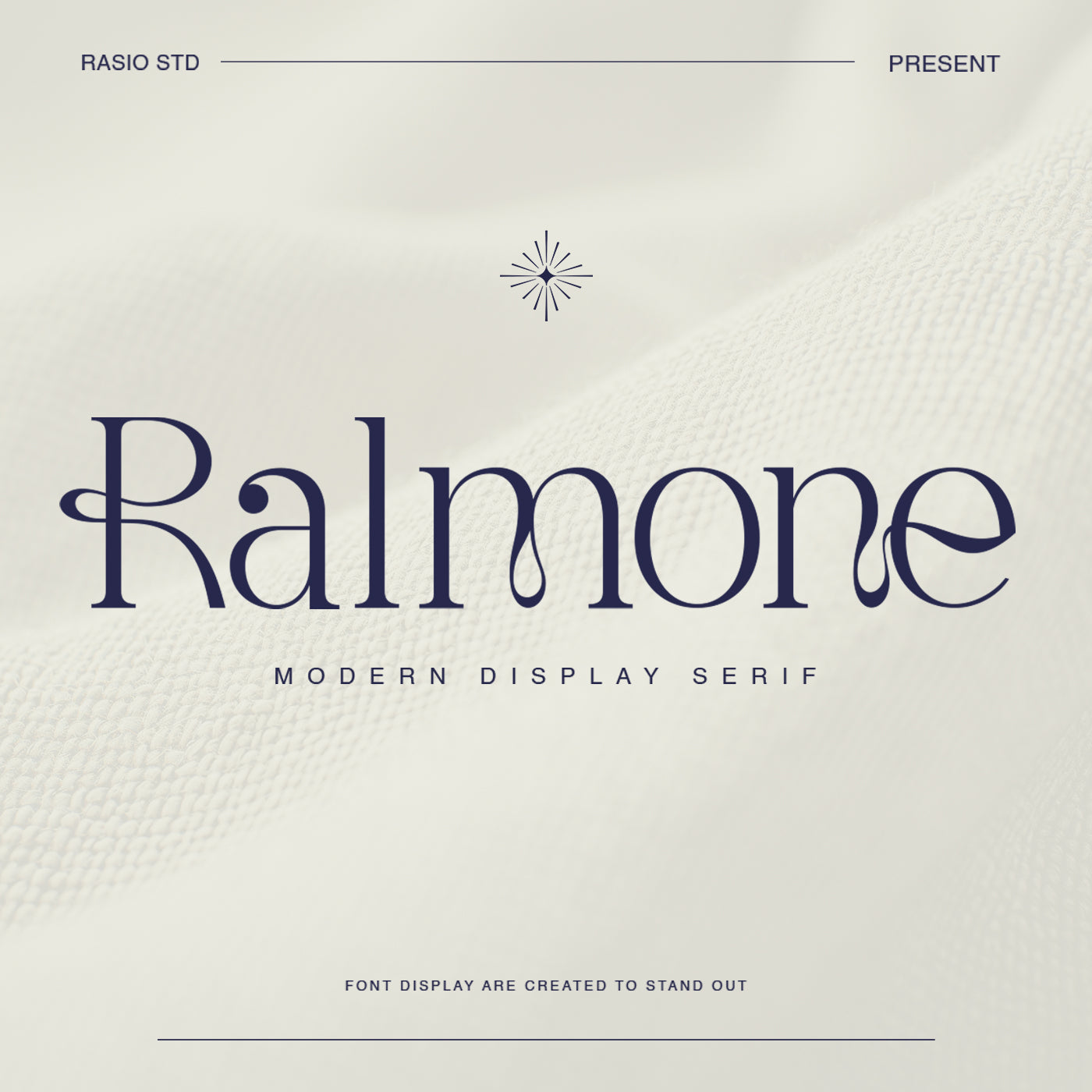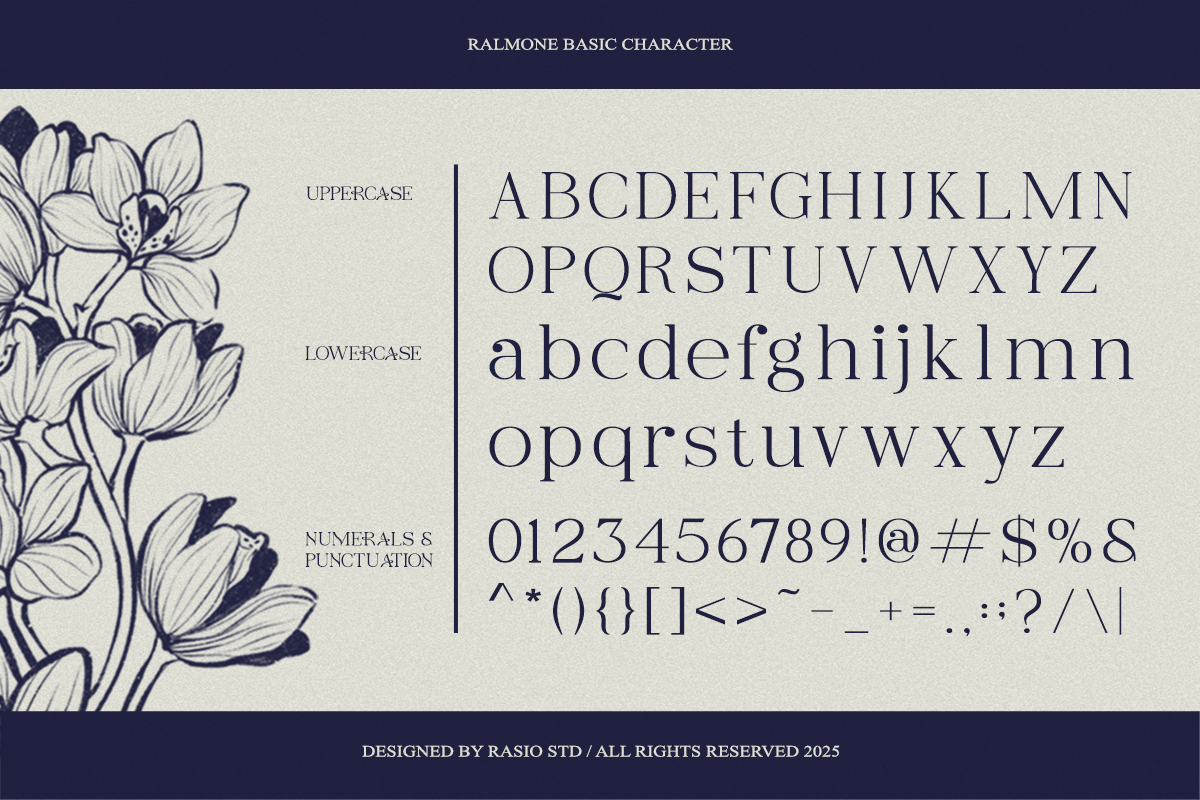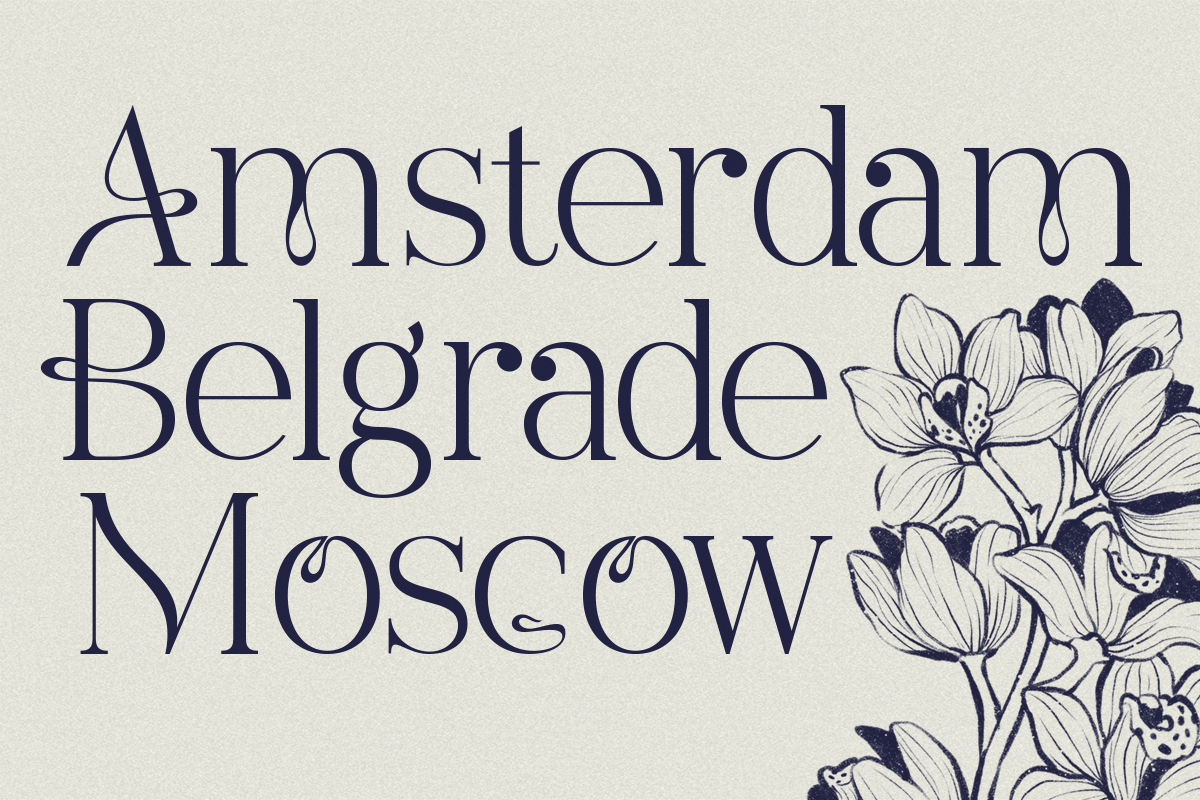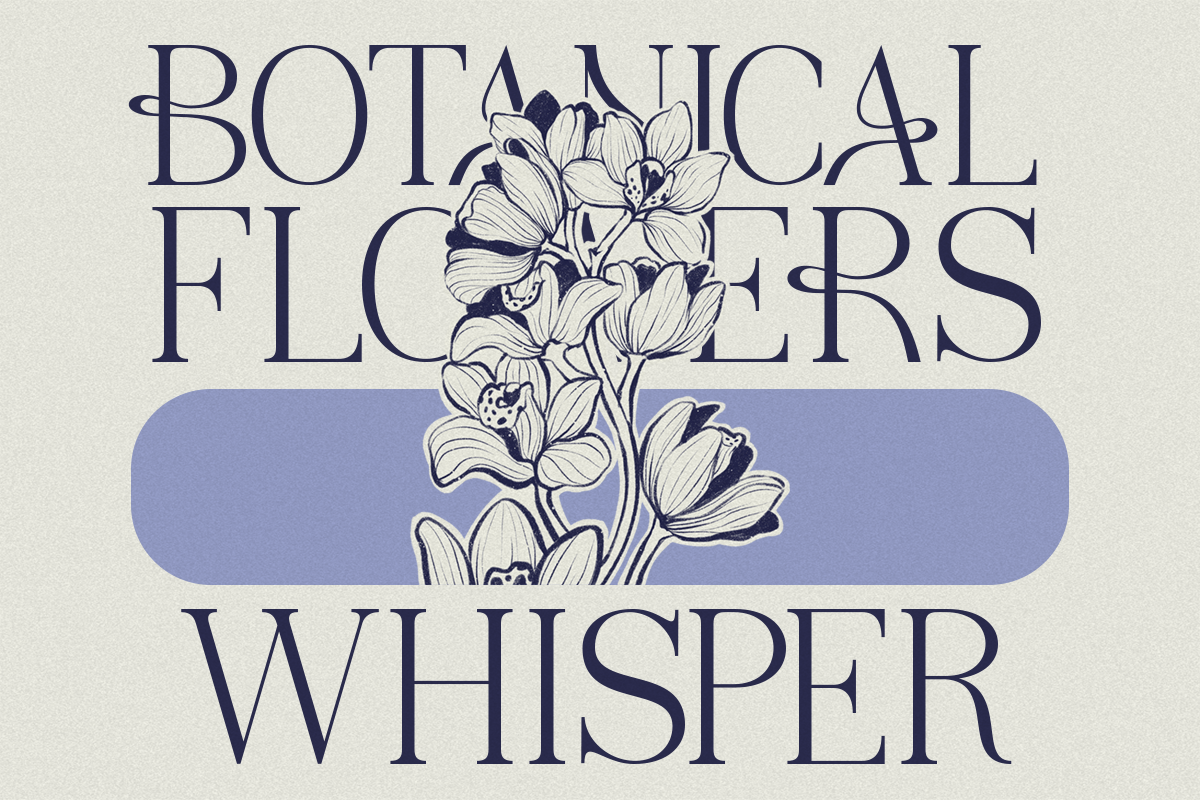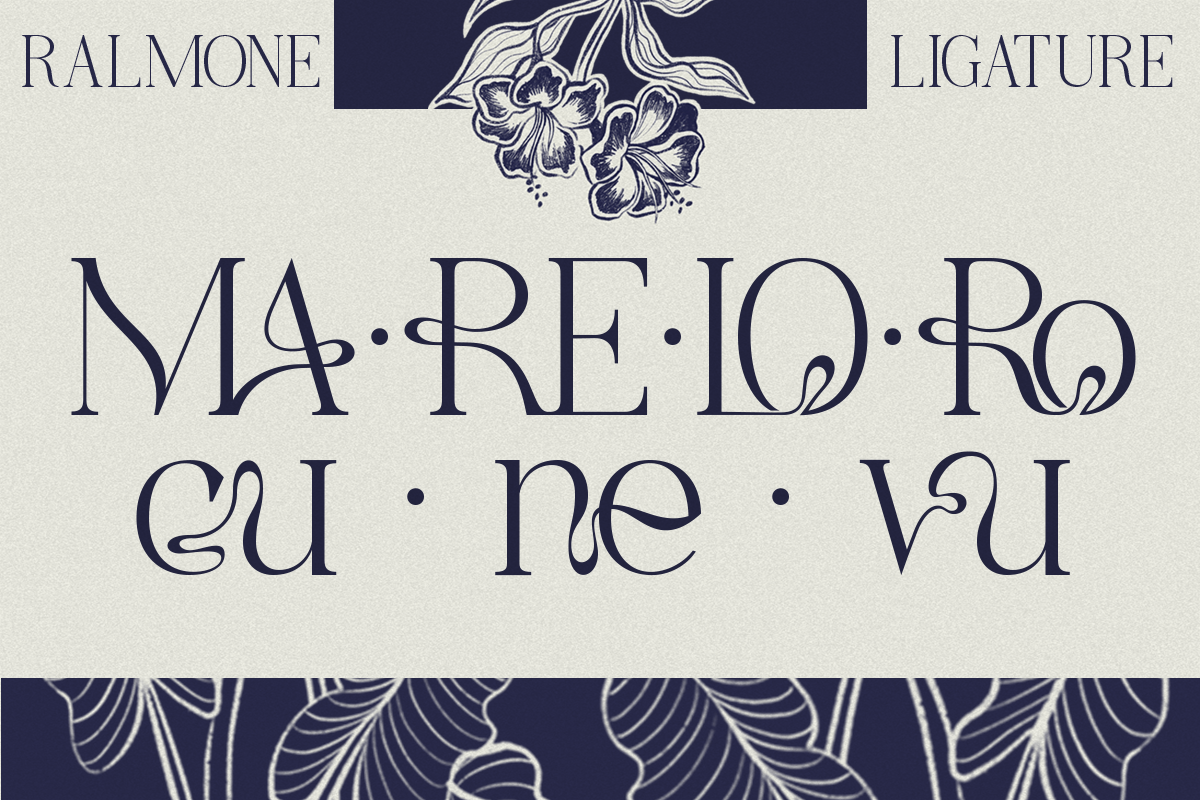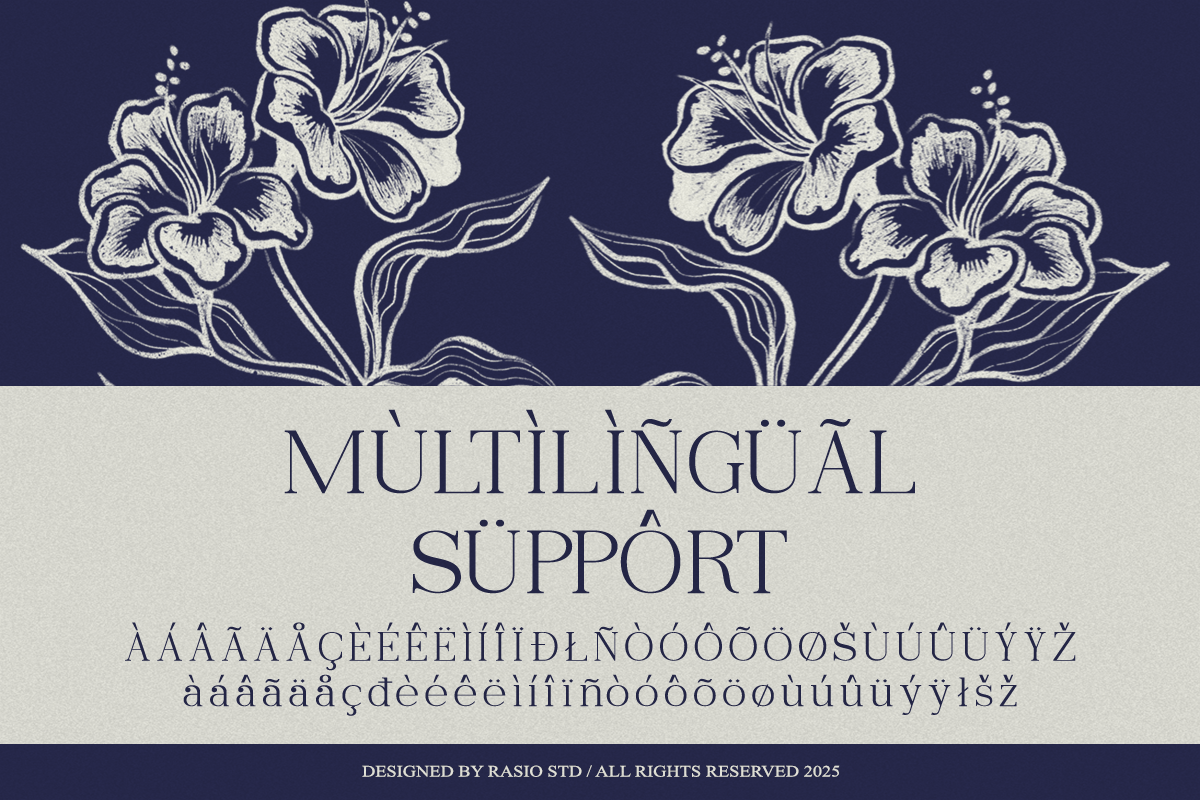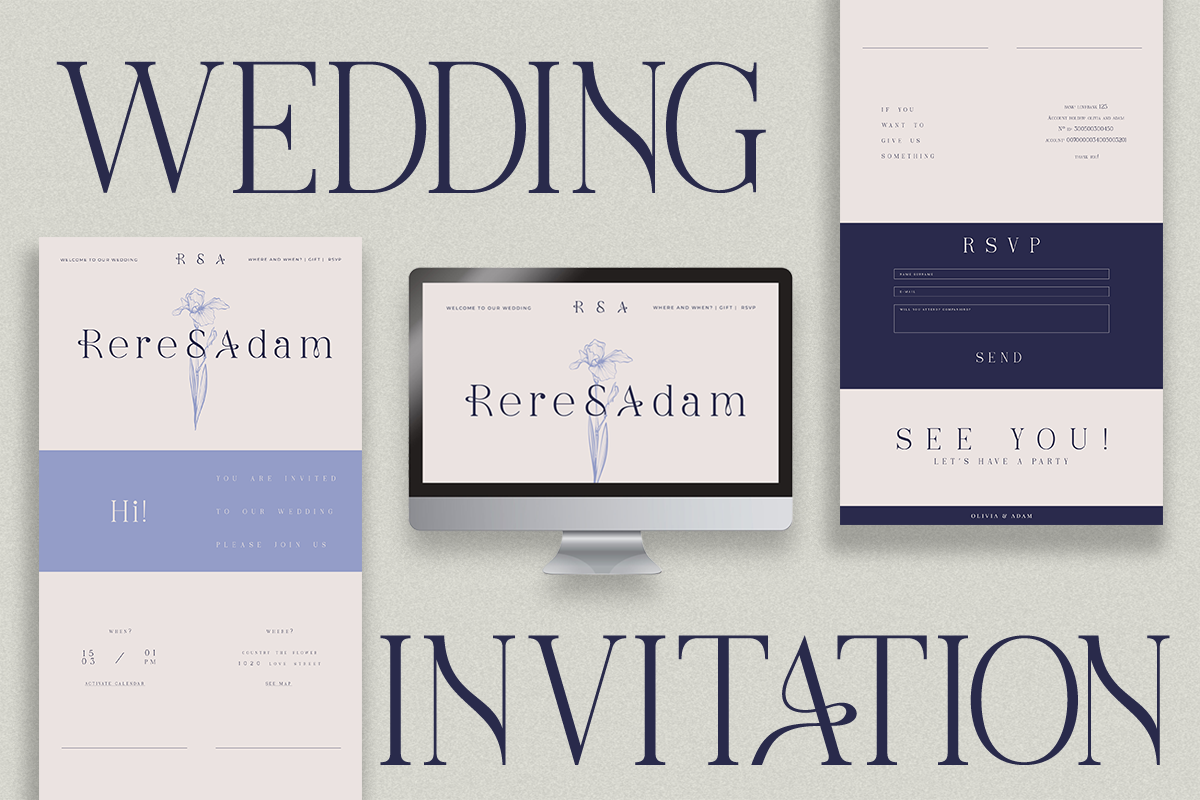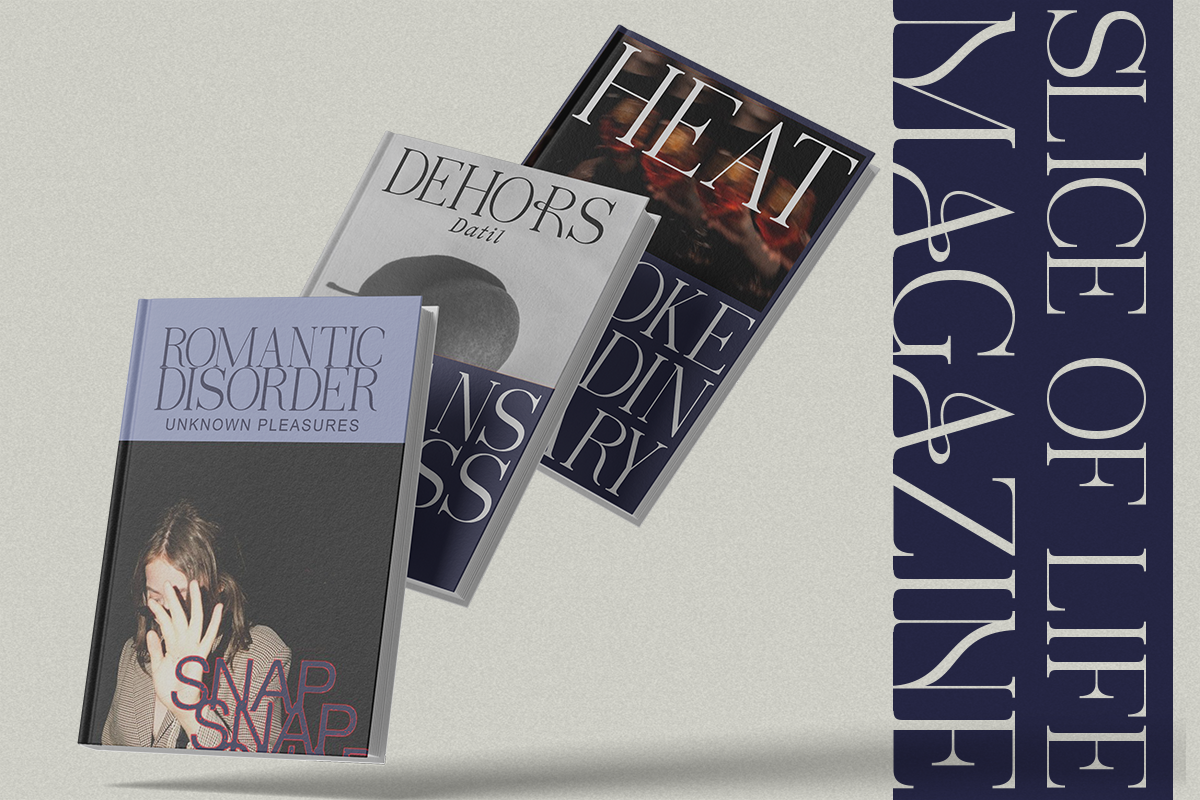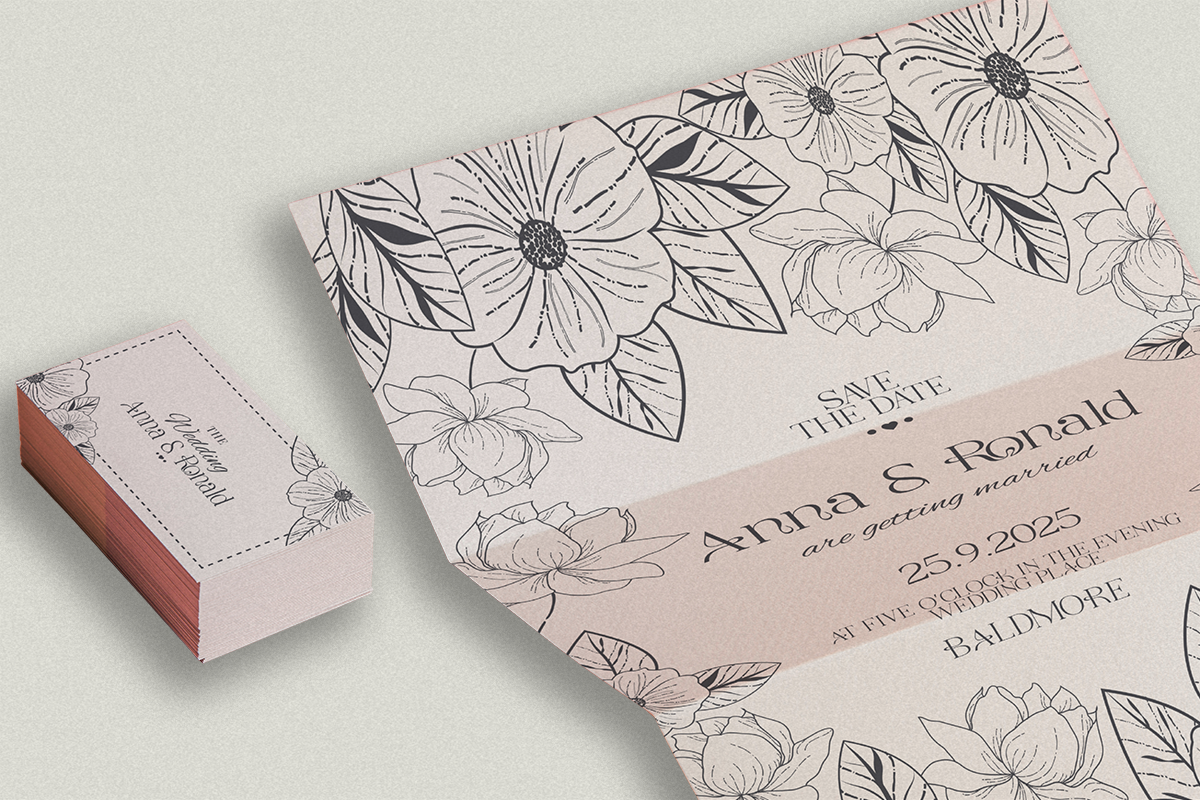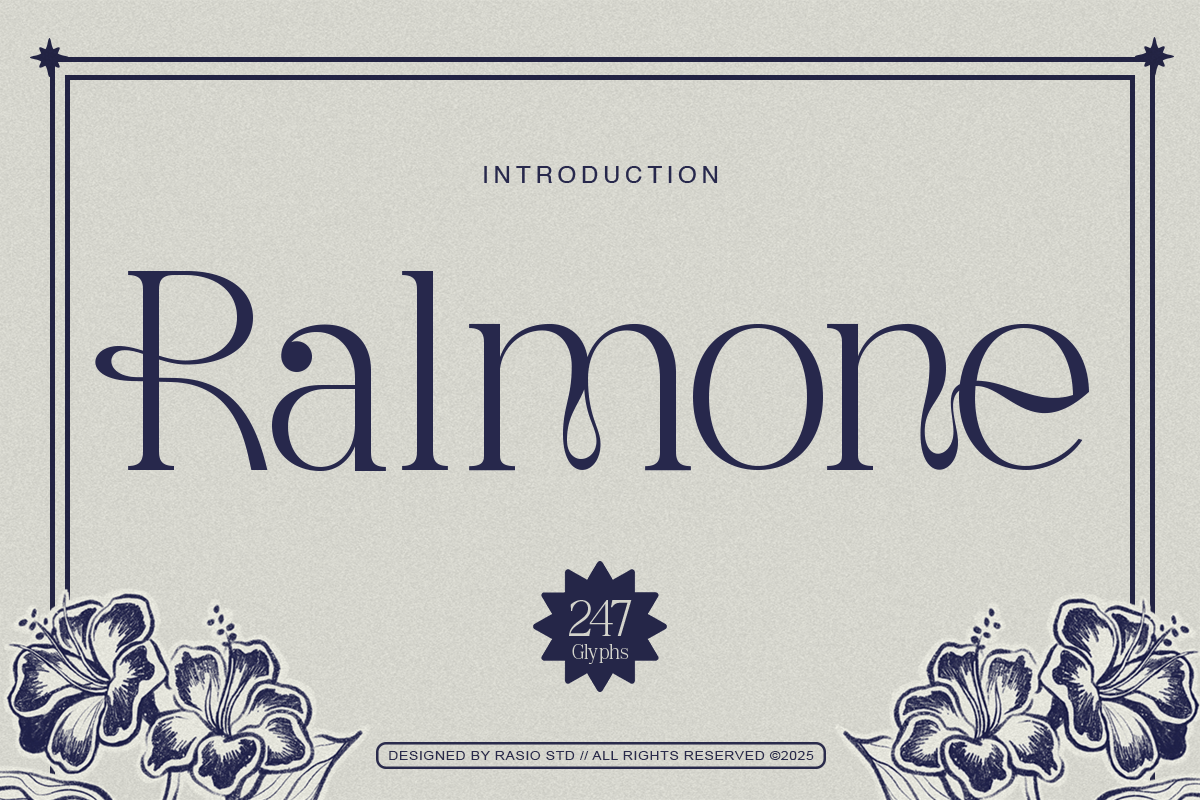
Ralmone Modern Display Serif Font
Ralmone is a refined modern display serif typeface that combines timeless elegance with contemporary sophistication. Its high contrast letterforms and graceful curves are enhanced by distinctive swashes and signature ligatures that create a luxurious and artistic impression. This typeface includes a complete character set featuring uppercase and lowercase letters, punctuation, numerals, and a variety of unique alternate glyphs. Designed for display purposes, Ralmone shines in applications like fashion branding, magazine headlines, packaging design, editorial layouts, and upscale logo projects.
Relevance & Use Cases is perfect for any design that demands attention with sophistication. From high-end fashion branding to lifestyle magazines and boutique packaging, this typeface adds an instant sense of refinement and visual charm. Its bold elegance makes it a great option for editorial use, promotional headlines, personal branding projects, and premium product presentations.
Ralmone is a modern display serif typeface featuring high contrast letterforms, swashes, and signature ligatures. It includes uppercase and lowercase letters, numerals, punctuation, alternate glyphs, and multilingual support, available in OTF, TTF, and WOFF formats.